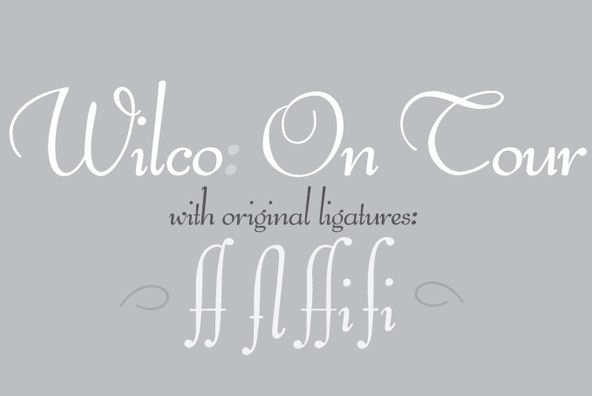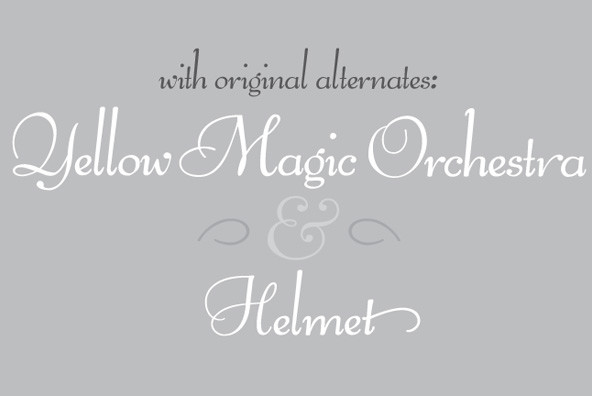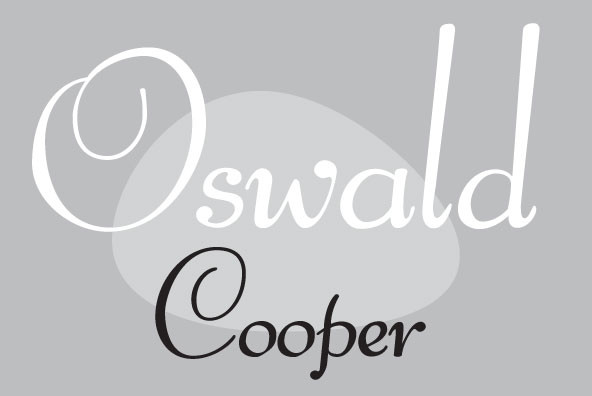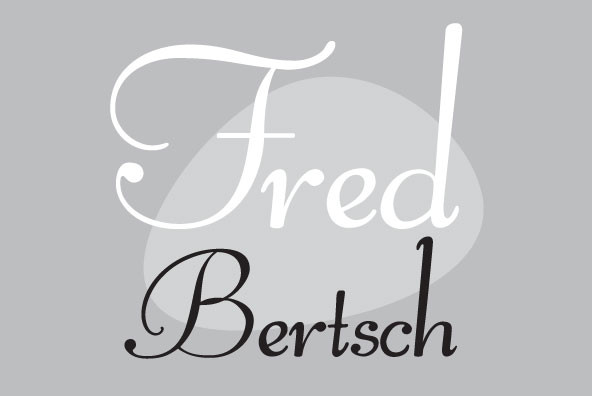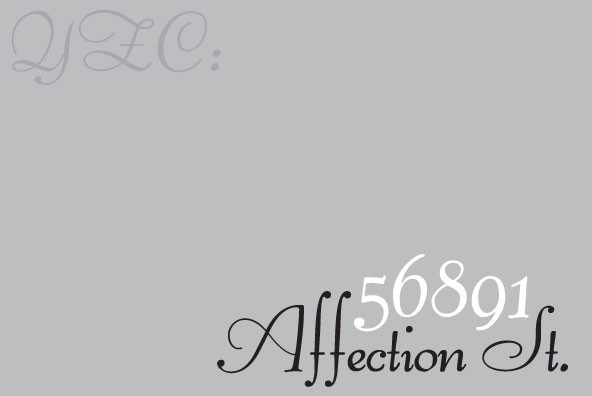
Pompeian Cursive is a calligraphically-inspired display typeface featuring a limited number of alternate characters and a handful of graceful ligatures. A lively set of non-lining numerals accompanies, as well as a few calligraphically-inspired flourishes for ornament. The history of this typeface: Oswald Cooper’s relationship with the Barnhart Brothers & Spindler foundry was one instigated under the auspices of creating new styles of type in lieu of following stylistic trends. In 1927, BB&S requested that Cooper create a script-like cursive typeface design in step with Lucien Bernhard’s Schoenschrift and ATF’s similarly-styled Liberty typeface. In response to BB&S’s desire to emulate instead of innovate, Cooper wrote to Mcarthur, “I am desolated to see Barnhart’s hoist the black flag. Your own efforts through the years to boost the foundry into a place in the sun as an originator seem wasted.” Still, Cooper took up the task at hand, creating a delicate, sophisticated type design which he named Pompeian Cursive. The typeface featured a limited number of alternate characters and a handful of graceful ligatures. A lively set of non-lining numerals accompanied, as well as a few calligraphically-inspired flourishes for ornamenting the end of lines of type accompanied the typeface, as well. By reviewing the few remaining original drawings for the type, as well as copious samples of Pompeian Cursive from both Cooper & BB&S' proofing process and period-specific type specimens, Wordshape presents the first digital version of this classic hybrid script/sans typeface, complete with all original alternate characters and ornaments. Pompeian Cursive has been intensively spaced and kerned for the finest setting for weddings, announcements, and general display work.